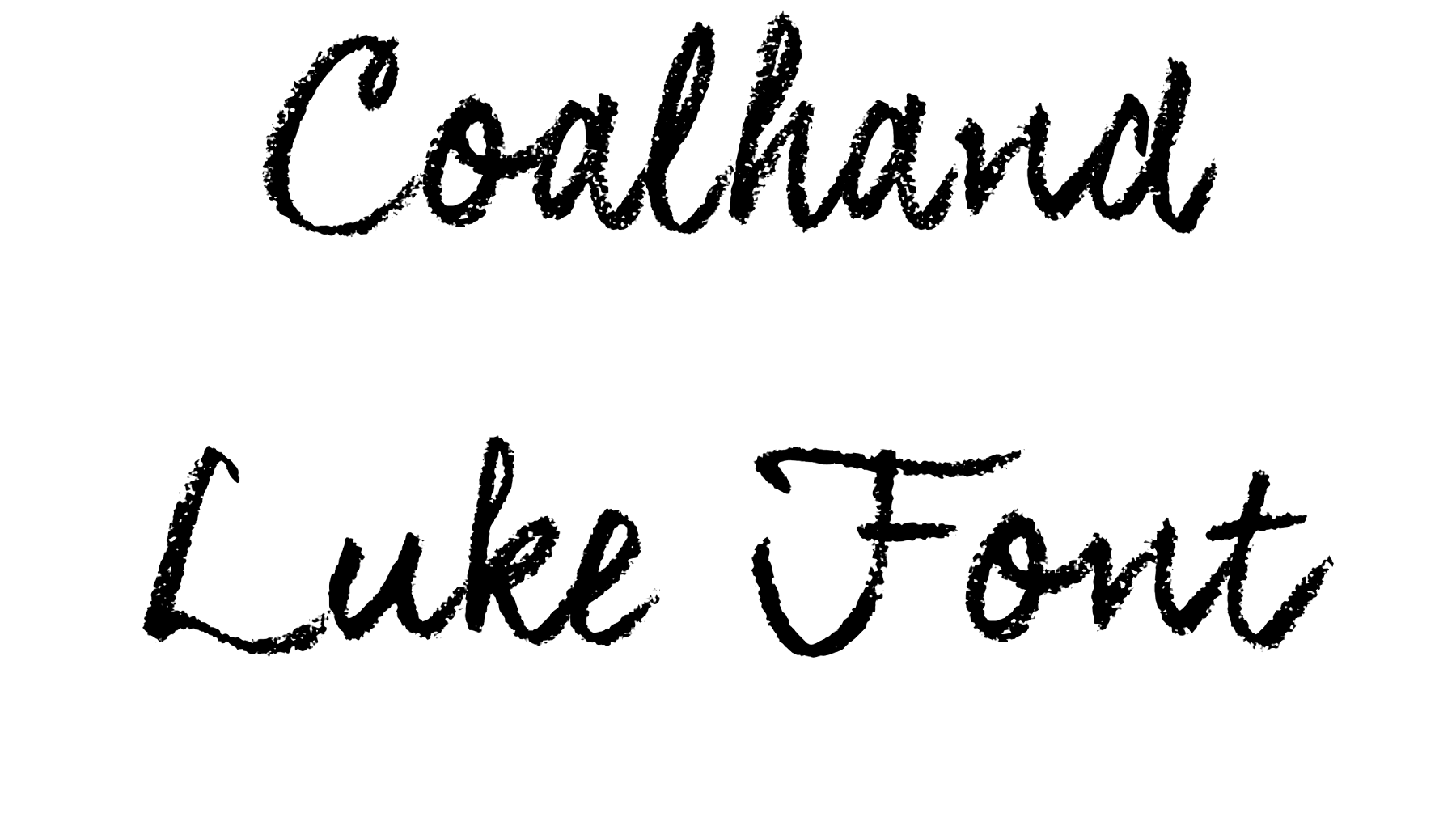
Coalhand Luke
Coalhand Luke is a fancy font designed by JJW van der Ham and published by JJW van der Ham / JOEBOB graphics (2014). Bold and full of character, it's built to stand out rather than blend in. You can download it for free and test it with your own words in the preview above.
Coalhand Luke covers the full alphabet in upper and lowercase, plus all ten numbers, so you can set names, dates and prices without switching fonts. Punctuation is limited, so look at the character map if you need a specific symbol. There are no accented letters like é or ñ, so it's best kept to English text.
Think of Coalhand Luke for posters, logos and eye-catching headlines. Use it for one standout word or headline and let simpler fonts handle the rest.